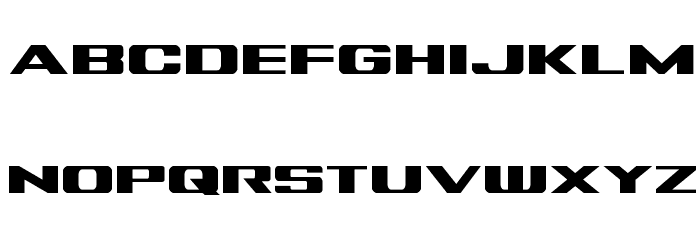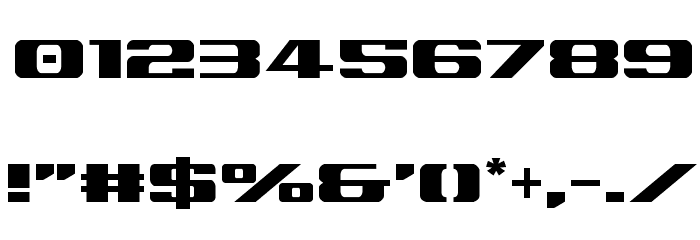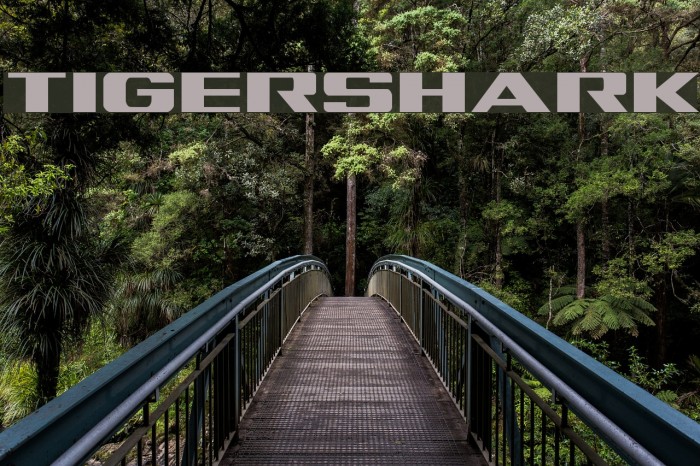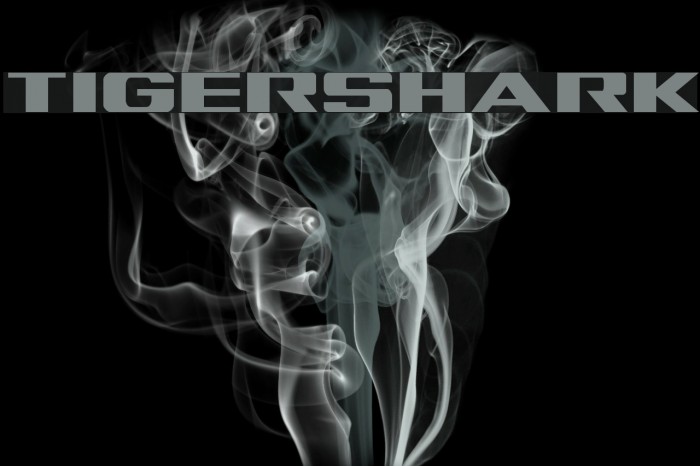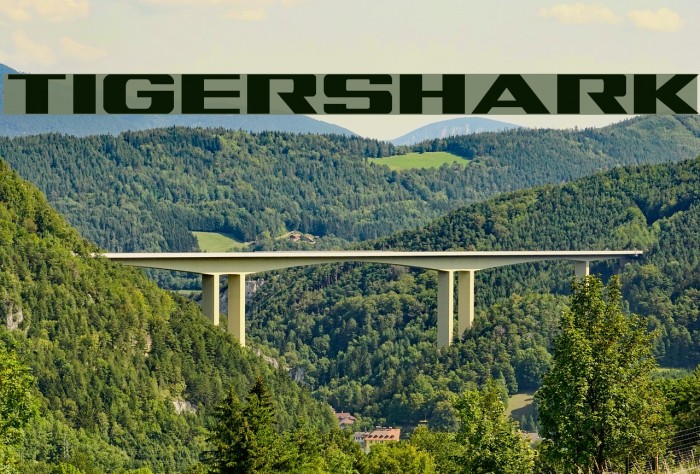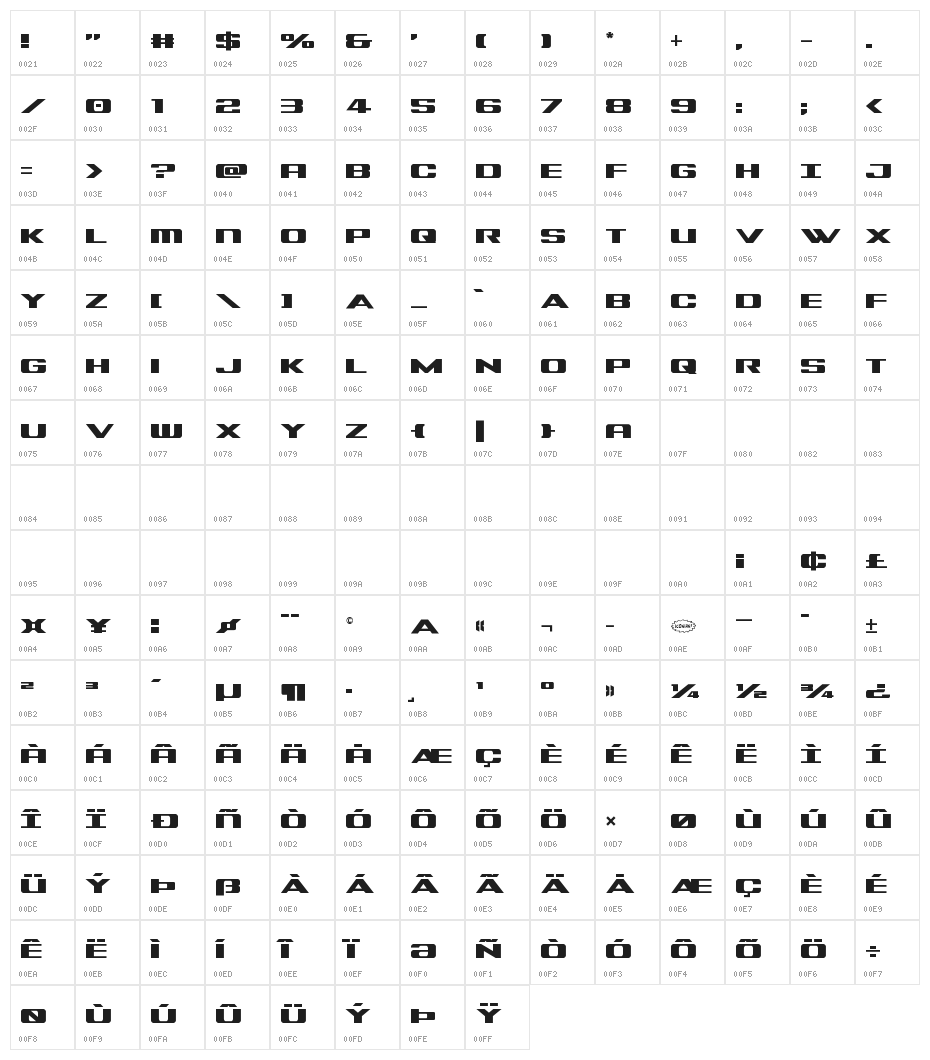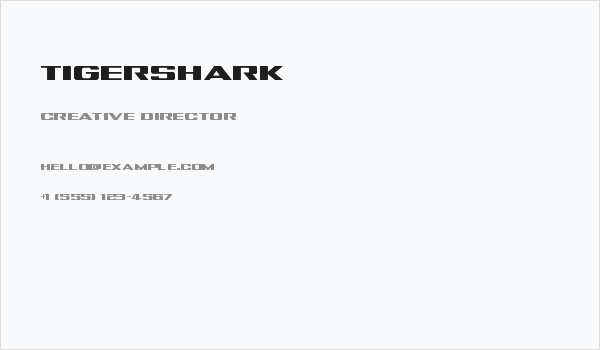
Tigershark Font
This font features a bold and striking design with a futuristic and angular appearance. The characters are constructed with sharp edges and geometric shapes, giving it a strong and dynamic presence. The uppercase and lowercase letters maintain a consistent style, with a uniform width that enhances readability. Numbers and special characters are designed to match the boldness and angularity of the alphabet, making them stand out effectively. The font's unique style is ideal for creating impactful headlines and attention-grabbing designs.
- Proposed Projects: Ideal for sci-fi themed designs, video game titles, branding for tech companies, and modern poster designs.